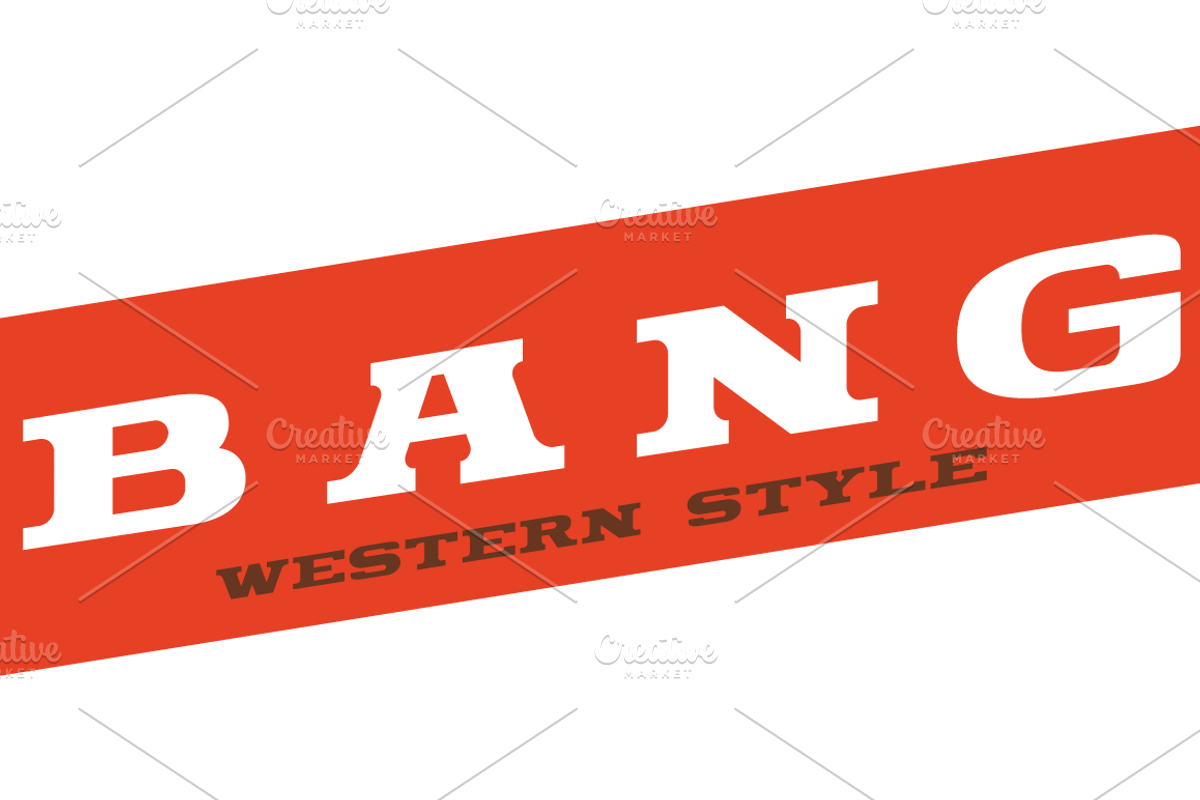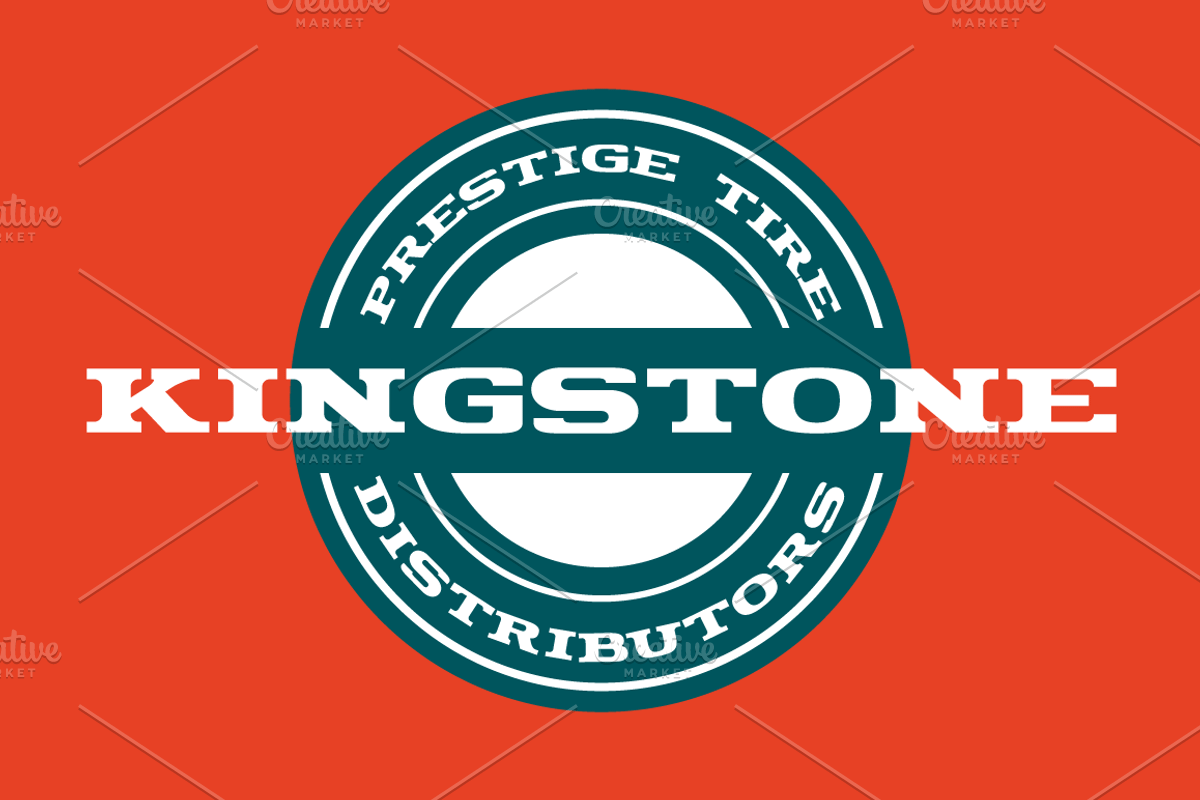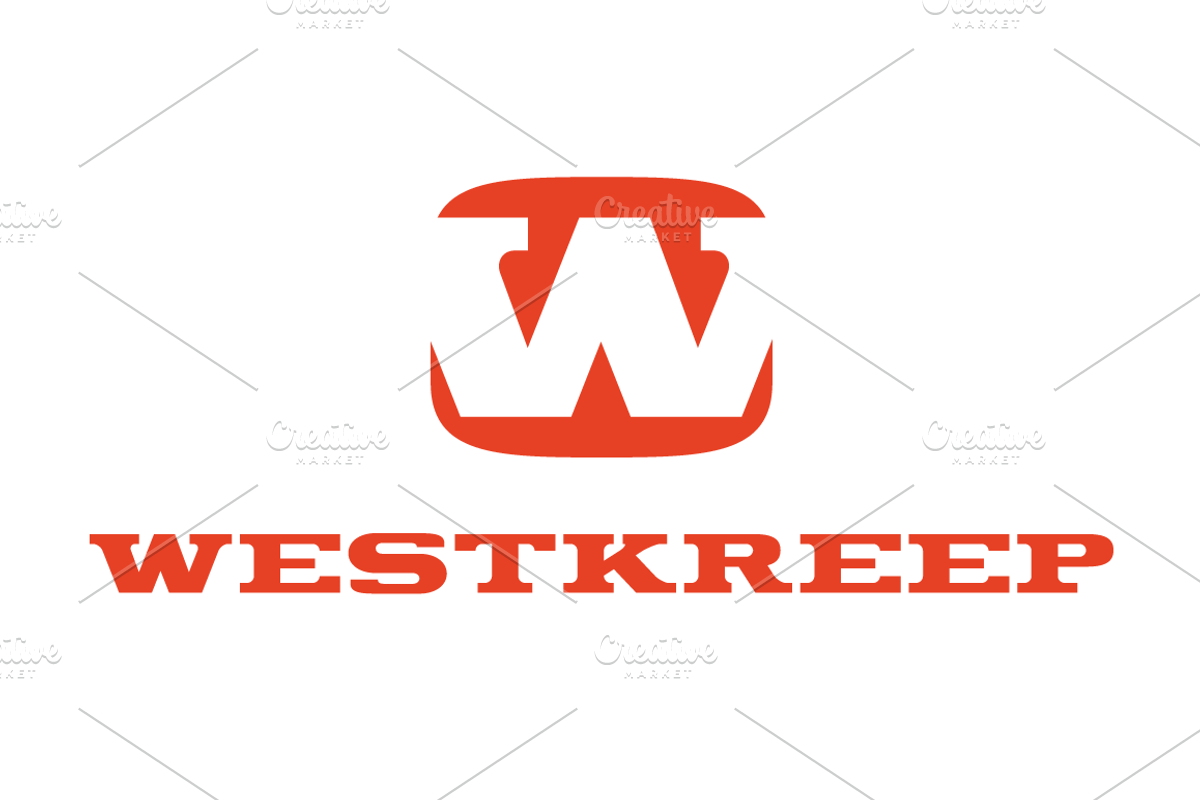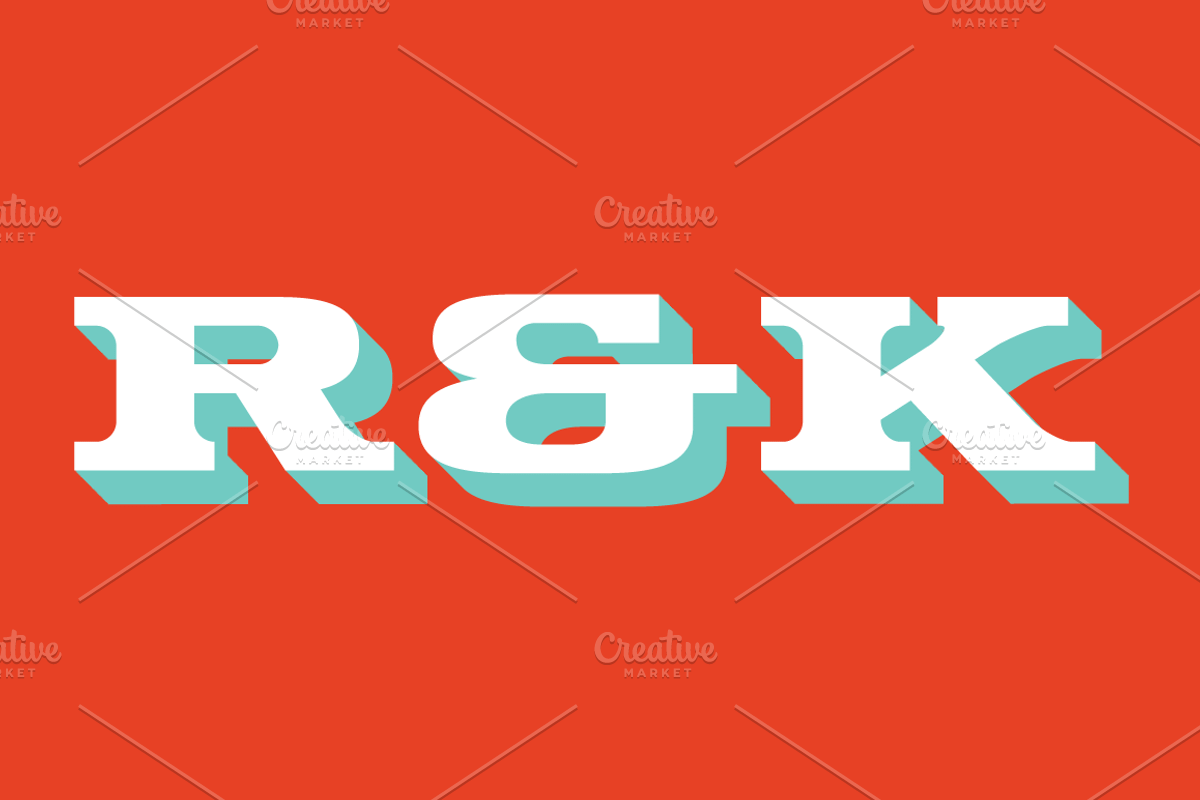
Westkreep Font
Westkreep Font by vectalex is a font selected for branding, posters, packaging, typography.
- Westkreep is based on wood type with characters extremely wide relative to their height.
Why Westkreep Font is worth a look
Westkreep Font by vectalex fits naturally into Branding, posters, packaging, typography.